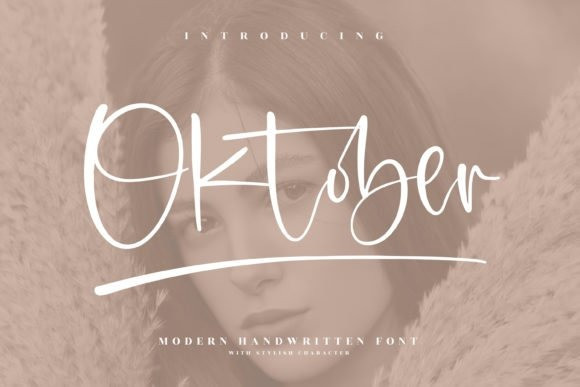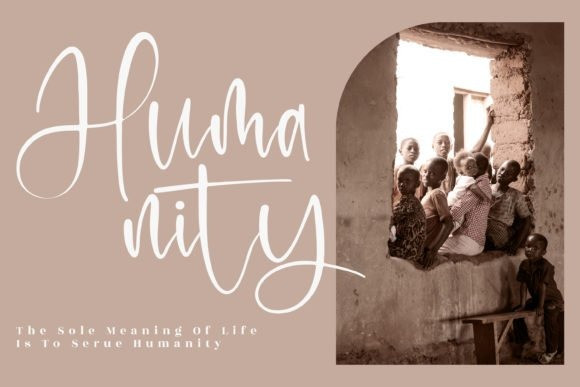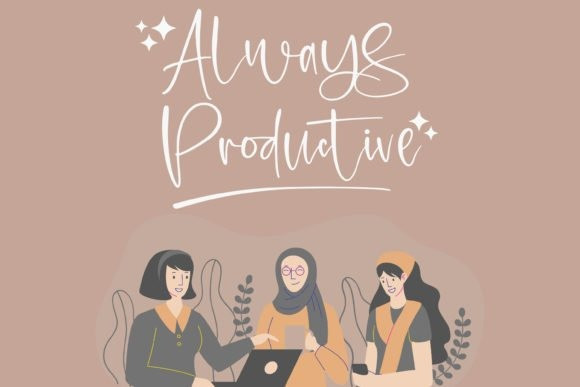
Oktober Font
Oktober is a thin and flowing handwritten font. Its flexibility and neat style will brighten up each of your designs. Have fun with this cool font and explore its endless variations.